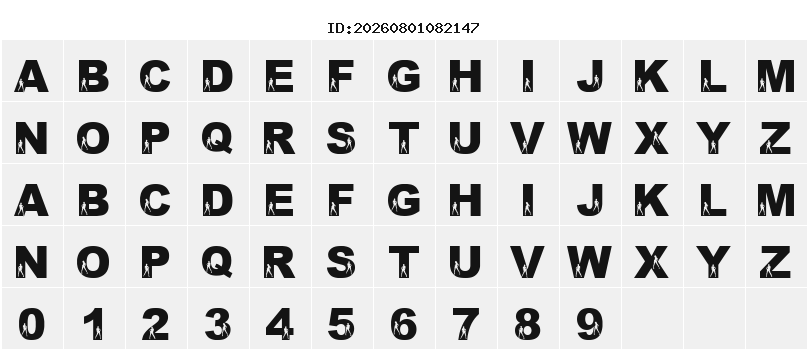
• Font Name: LMS Charlies Other Angels
About LMS Charlies Other Angels.ttf
LMS Charlies Other Angels.ttf is a modern, elegant sans-serif font designed for ultimate readability and visual harmony. Perfect for branding, headlines, web design, and print materials.